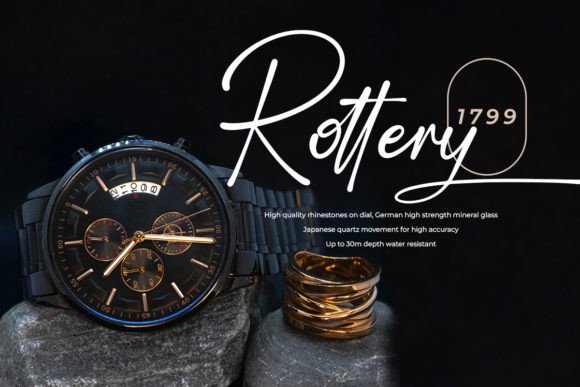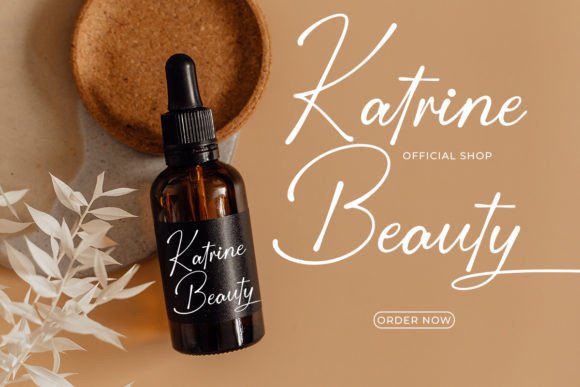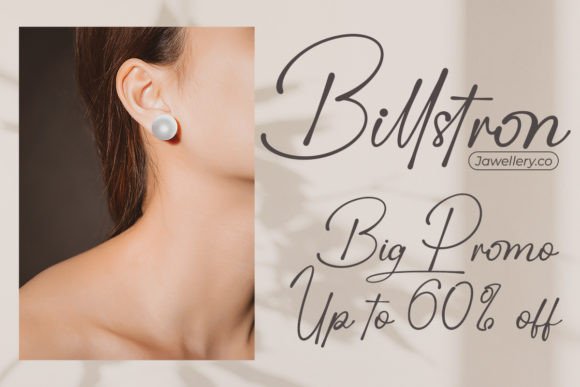
Cartridge Font
Cartridge is a handwritten font with a modern style. The Cartridge is ideal for design, logo design, blog graphics, style quotes, wedding stationery, art prints, additional design, packaging, social media, magazines, fashion, creative branding, editorial design, and web designing.